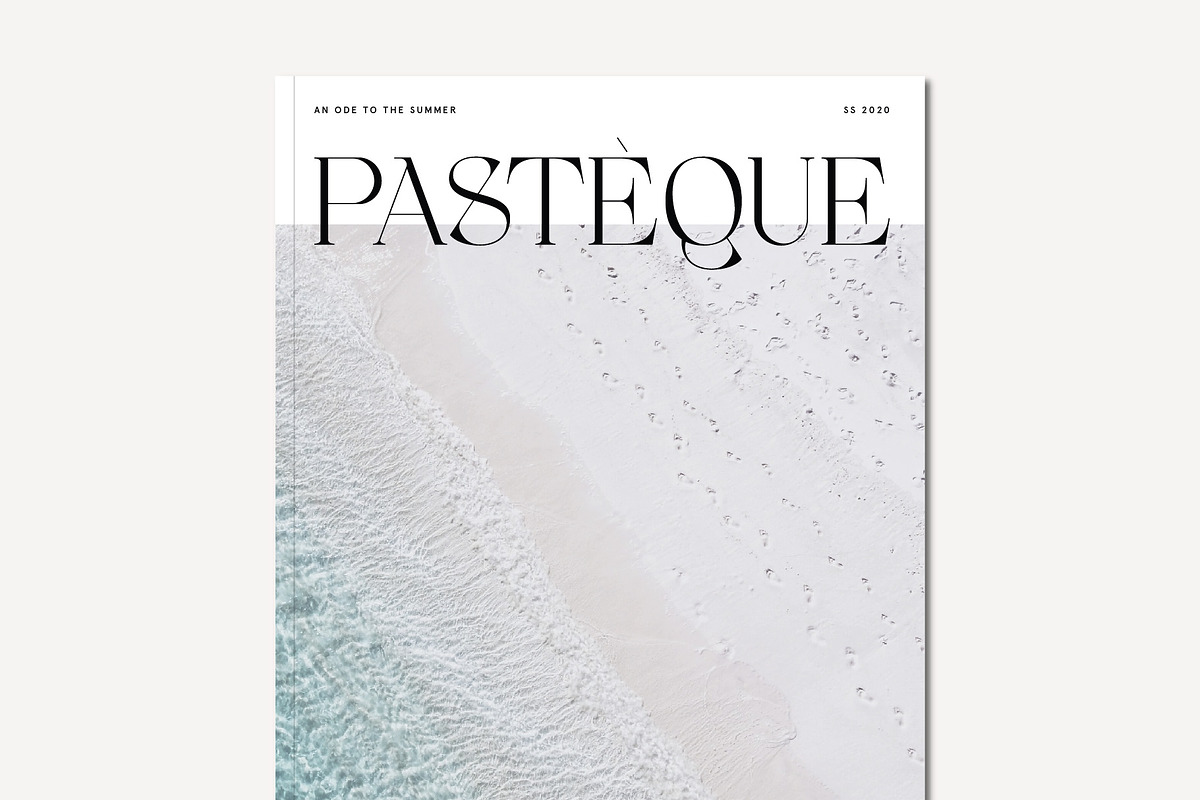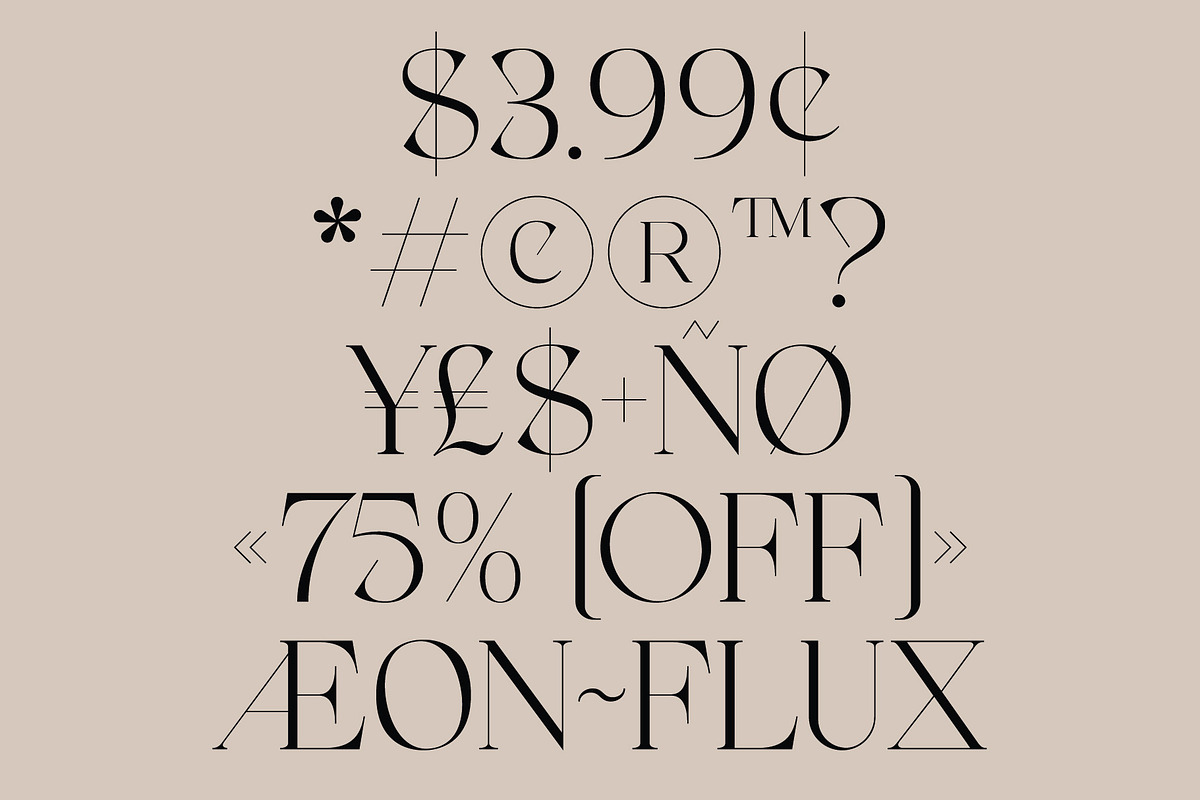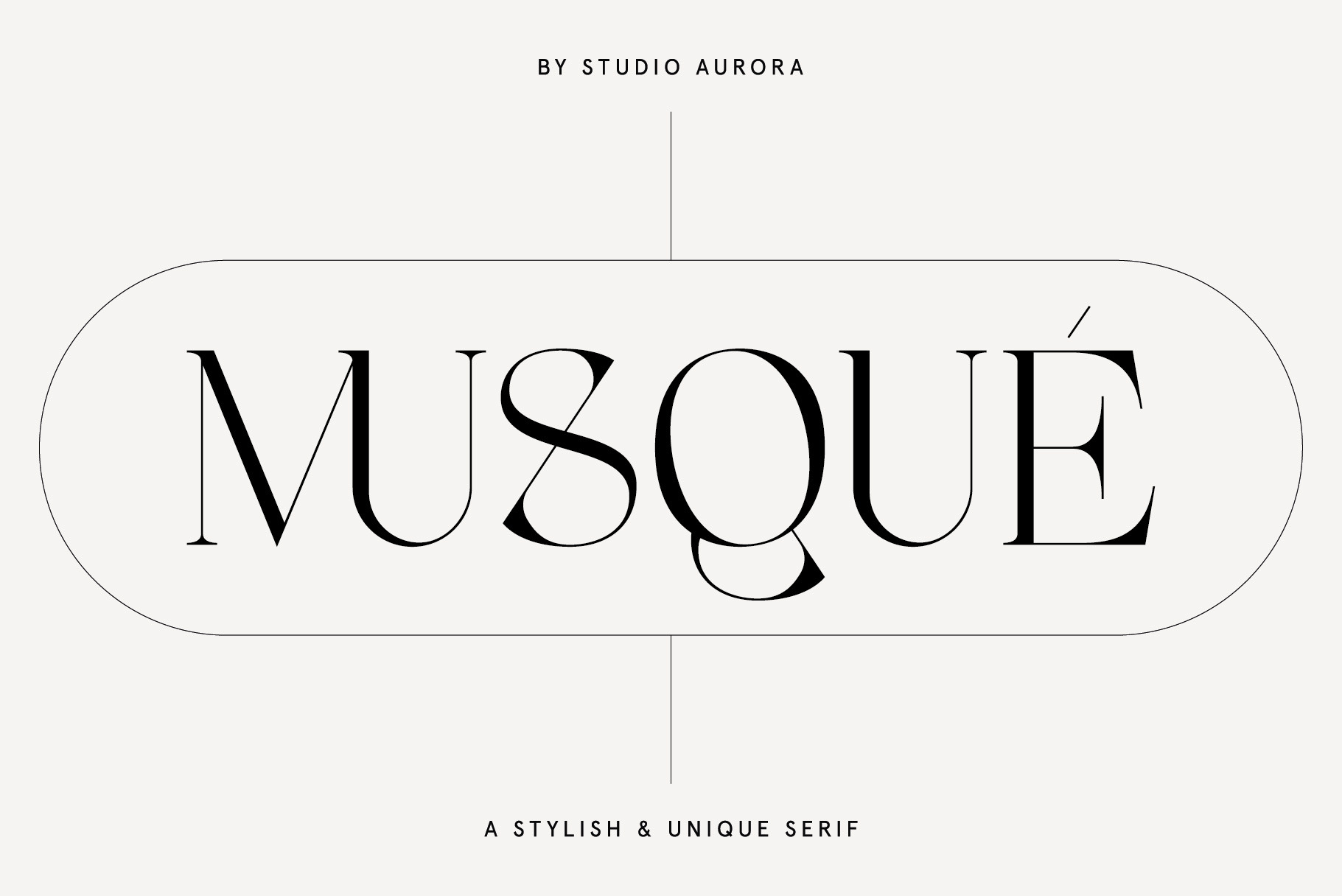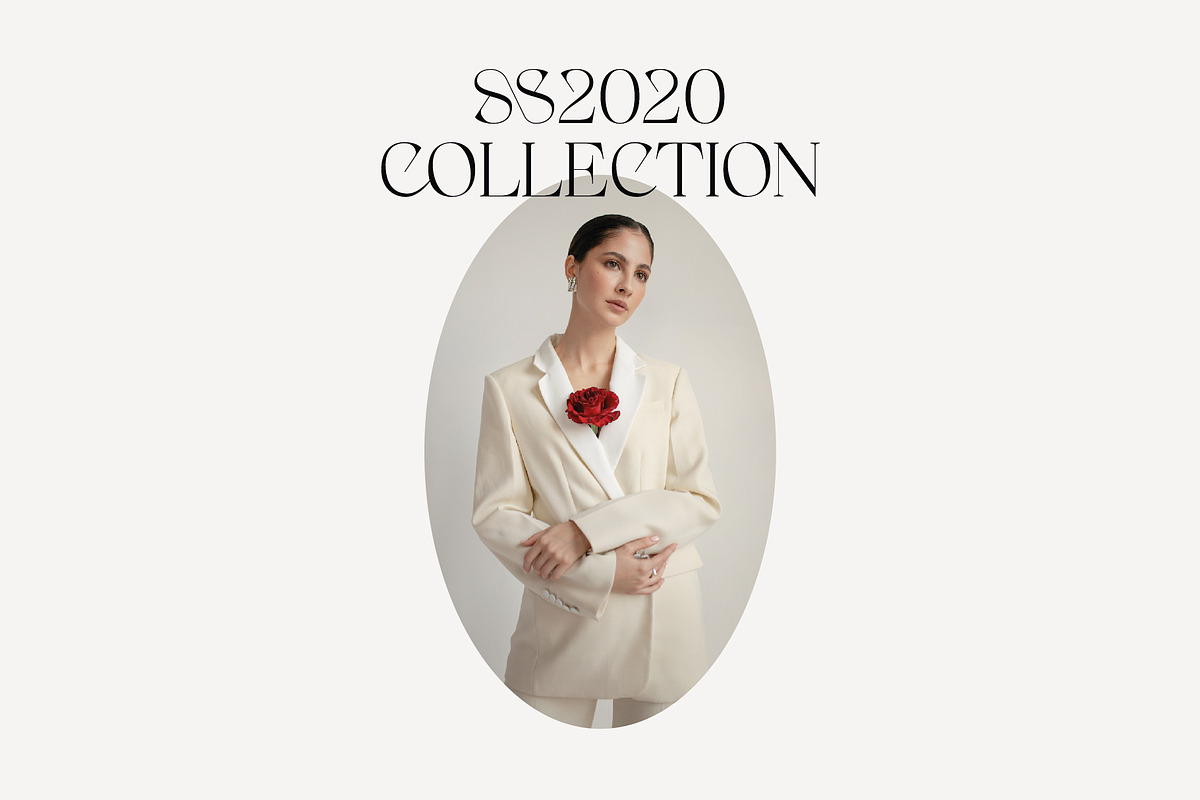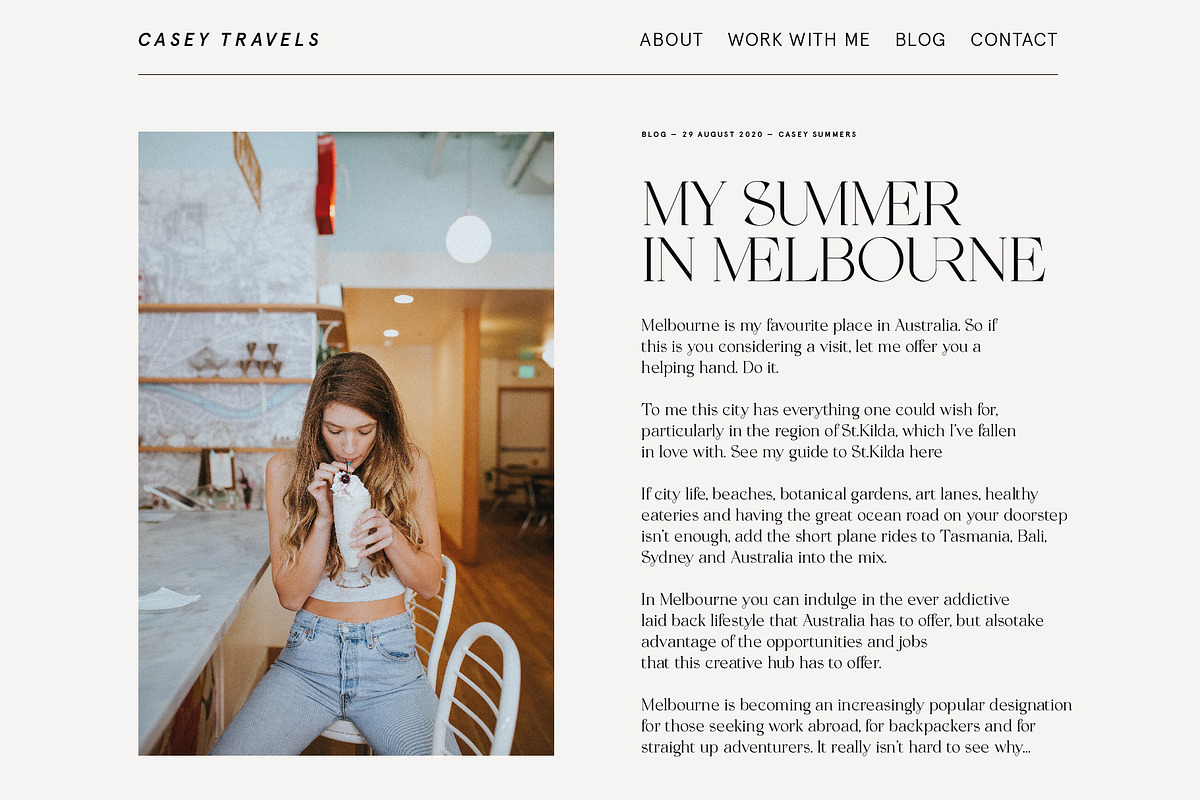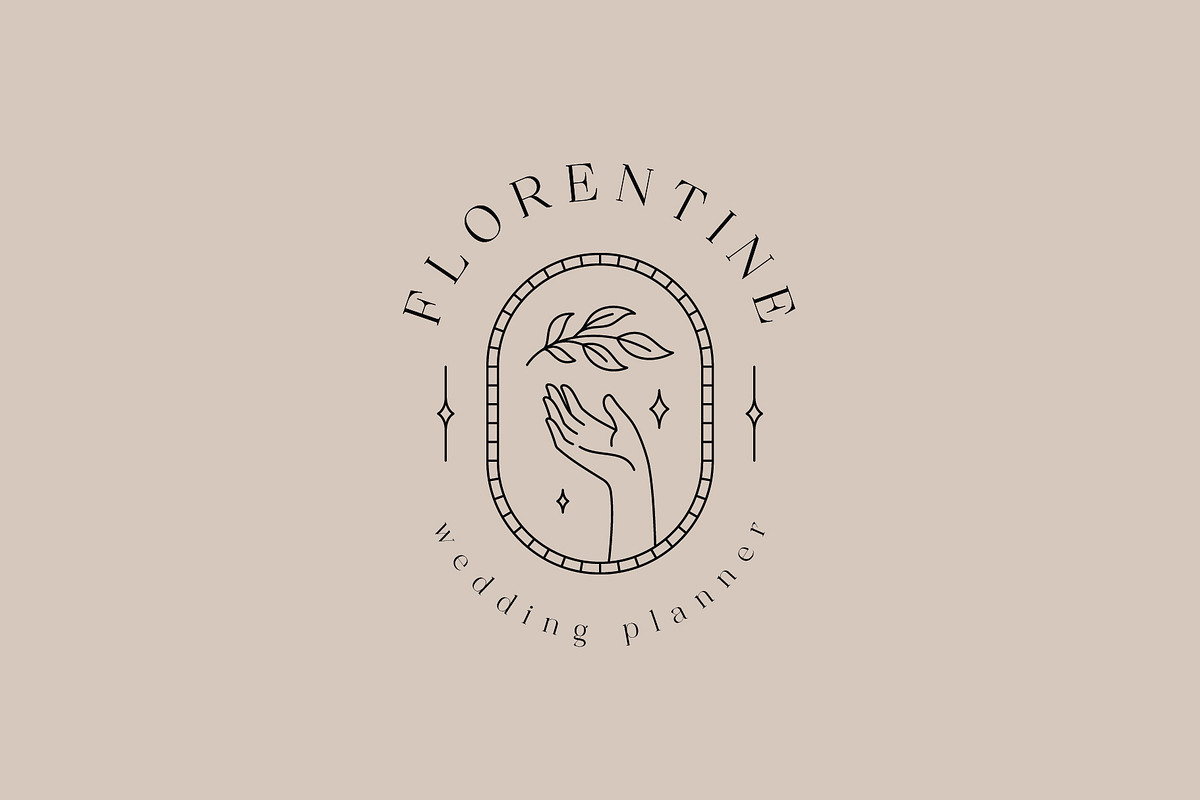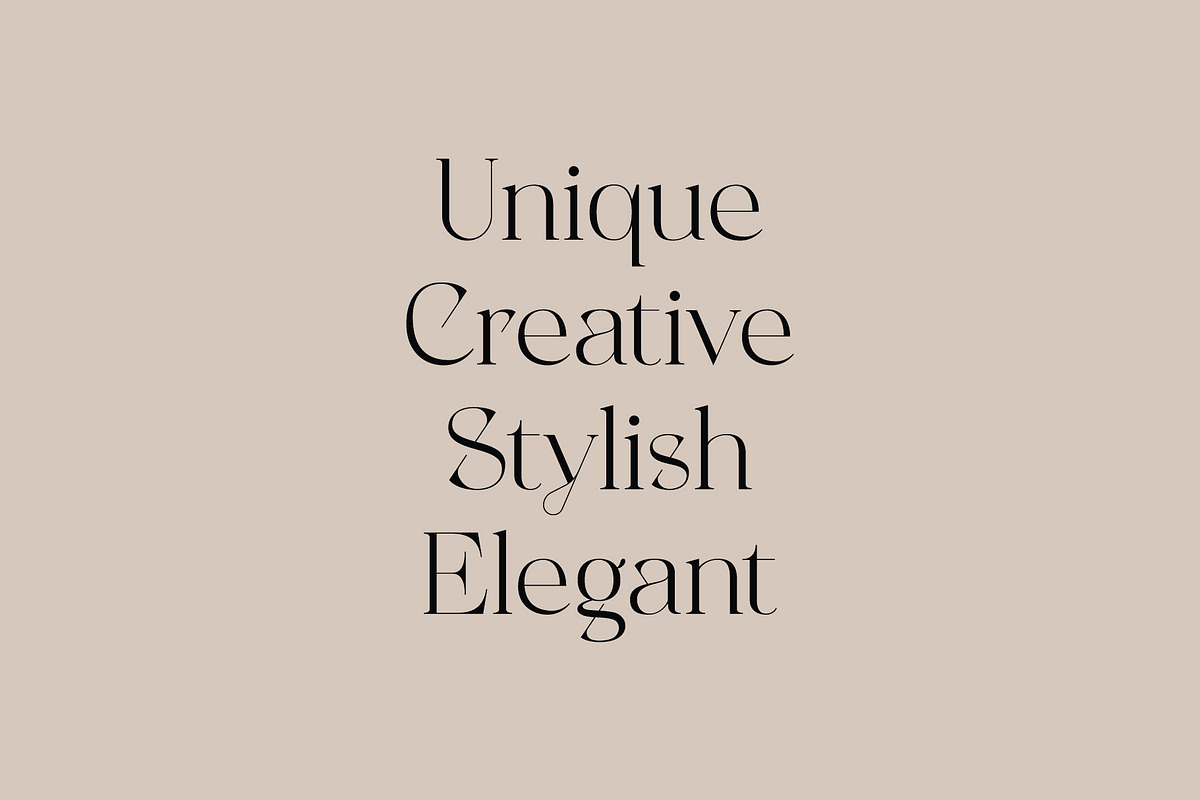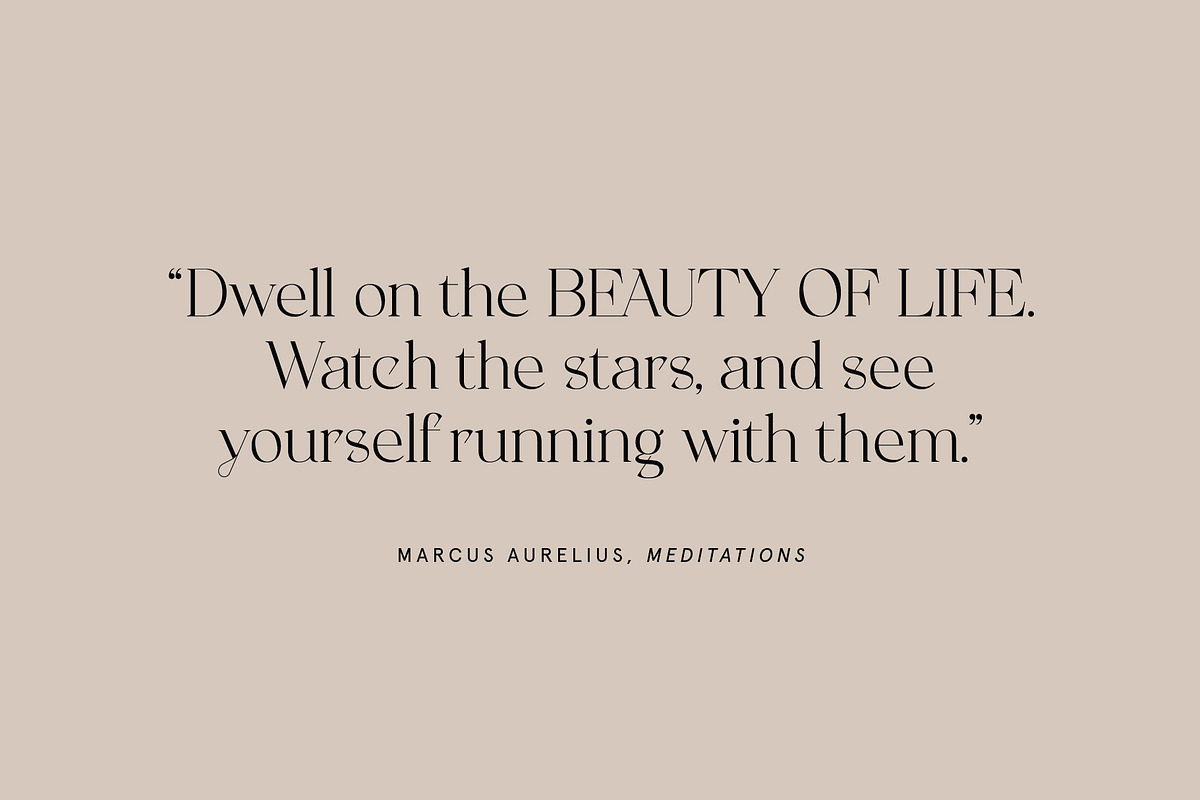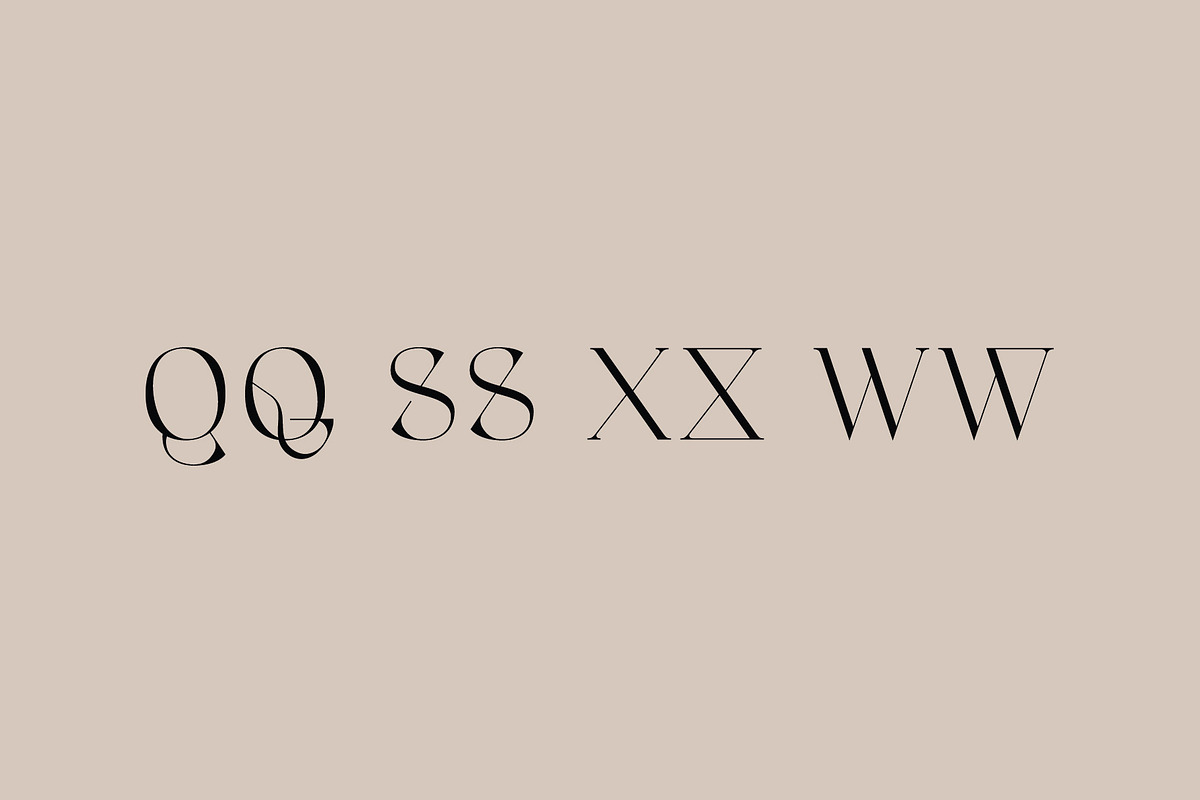
Musque – Unique Elegant Display Font
Say hello to Musque - a contemporary, elegant and fashionable display serif font. It is a unique, trendy font packed with interesting character and ligatures to give your designs a completely fresh and high-end look.
This is primarily a display font (but can also be used for body copy) that we recommend using in the following types of work; magazines (titles and layouts), logos and branding, invitations, quotes, blog headers, posters, and advertising.
- Alternate glyphs
- Standard and Discretionary Ligatures